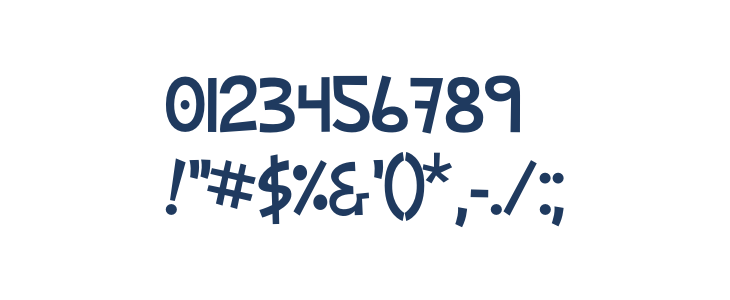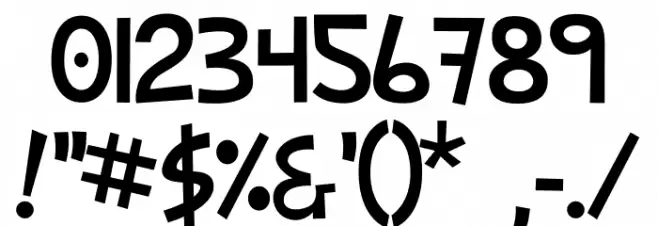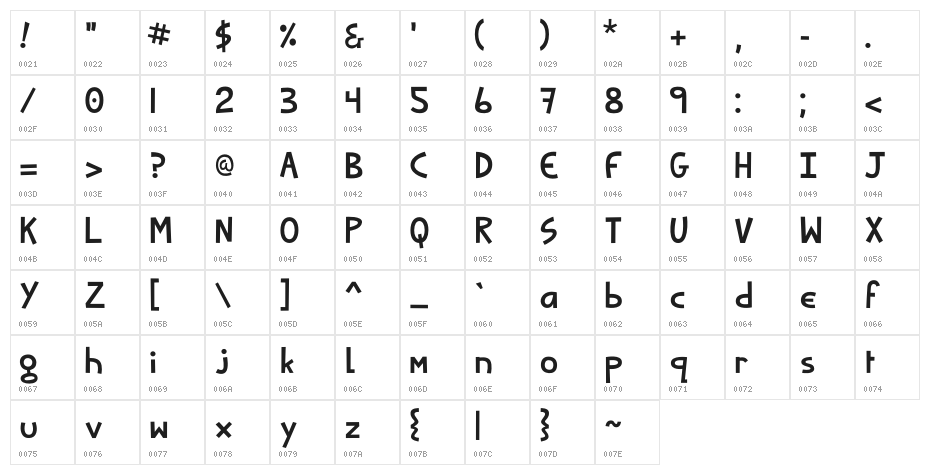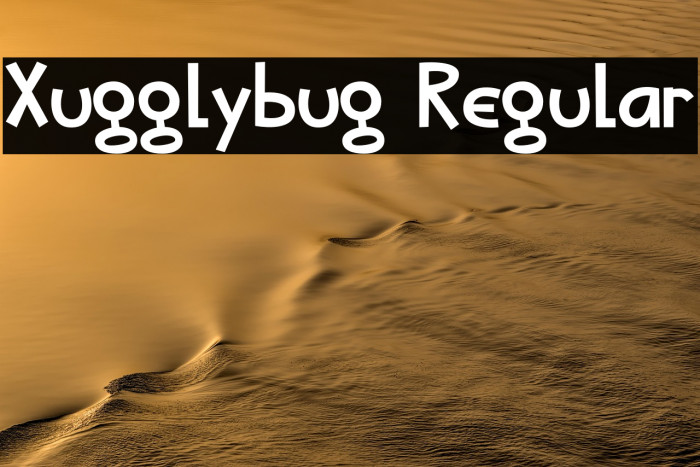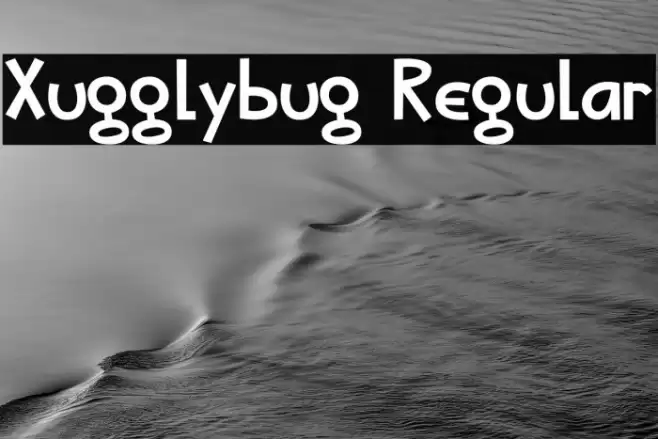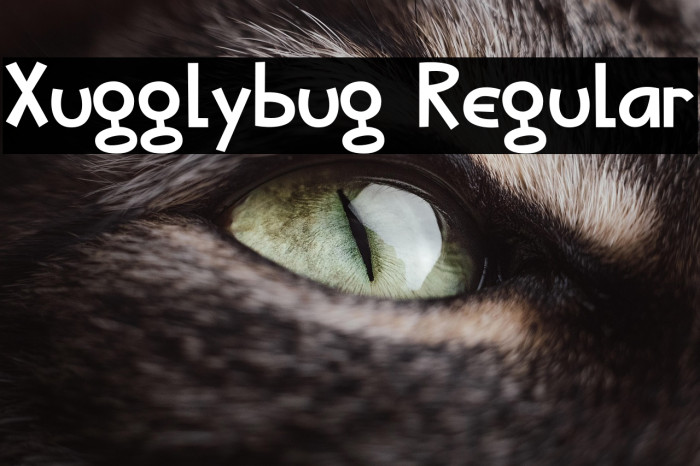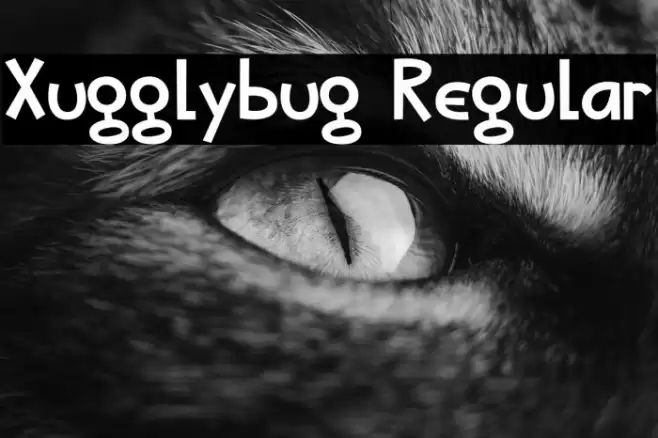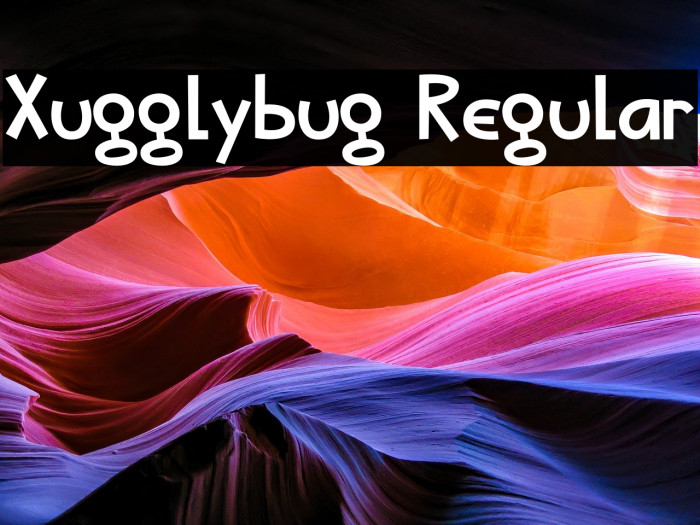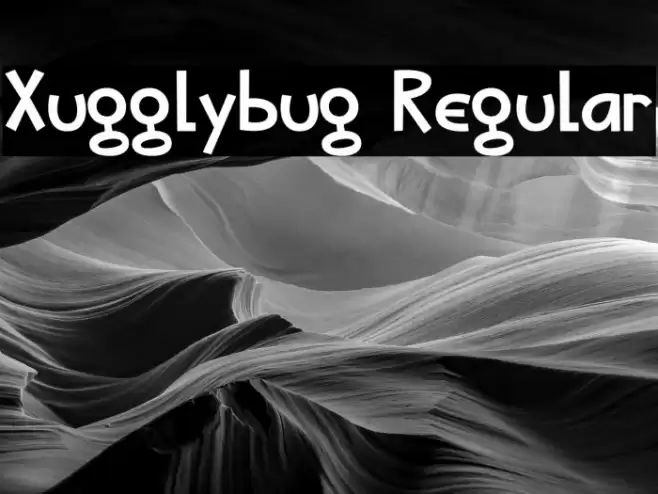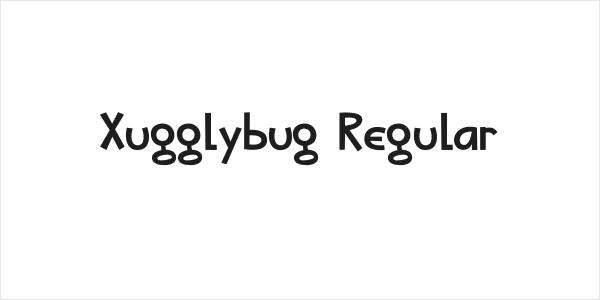
Xugglybug Regular Font
Xugglybug Regular Description
This font features a playful and quirky design, characterized by its irregular and whimsical letterforms. The uppercase and lowercase letters exhibit a hand-drawn quality, with varying stroke thicknesses and a slightly uneven baseline, adding to its charm. The numerals and special characters maintain this playful aesthetic, making the font suitable for creative and informal applications. The overall style is reminiscent of a cartoon or comic book, with a lively and energetic feel.
| Overall Style | Playful, Quirky, Hand-drawn |
| Proposed Projects | Ideal for children's books, comic strips, playful branding, and creative posters. |